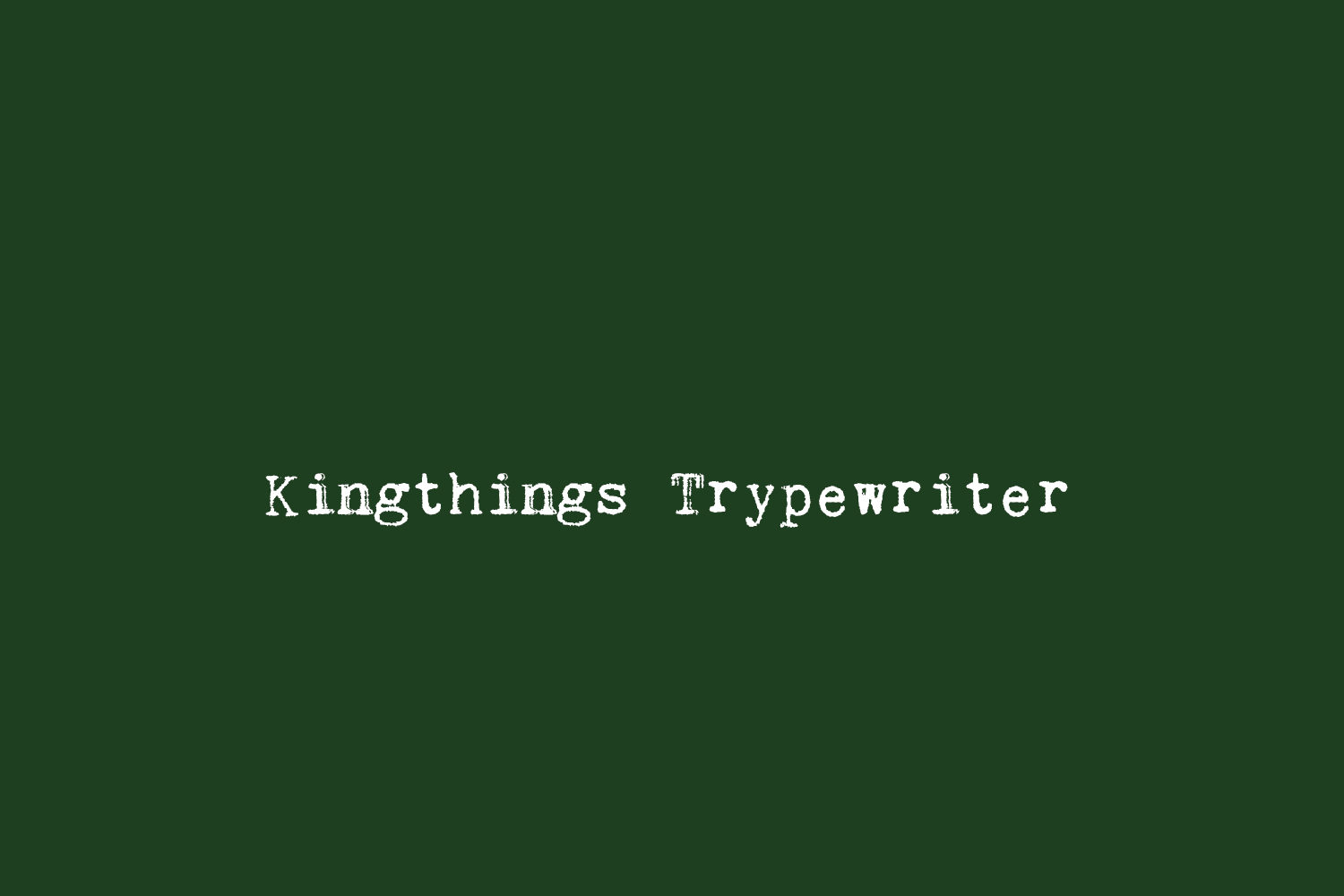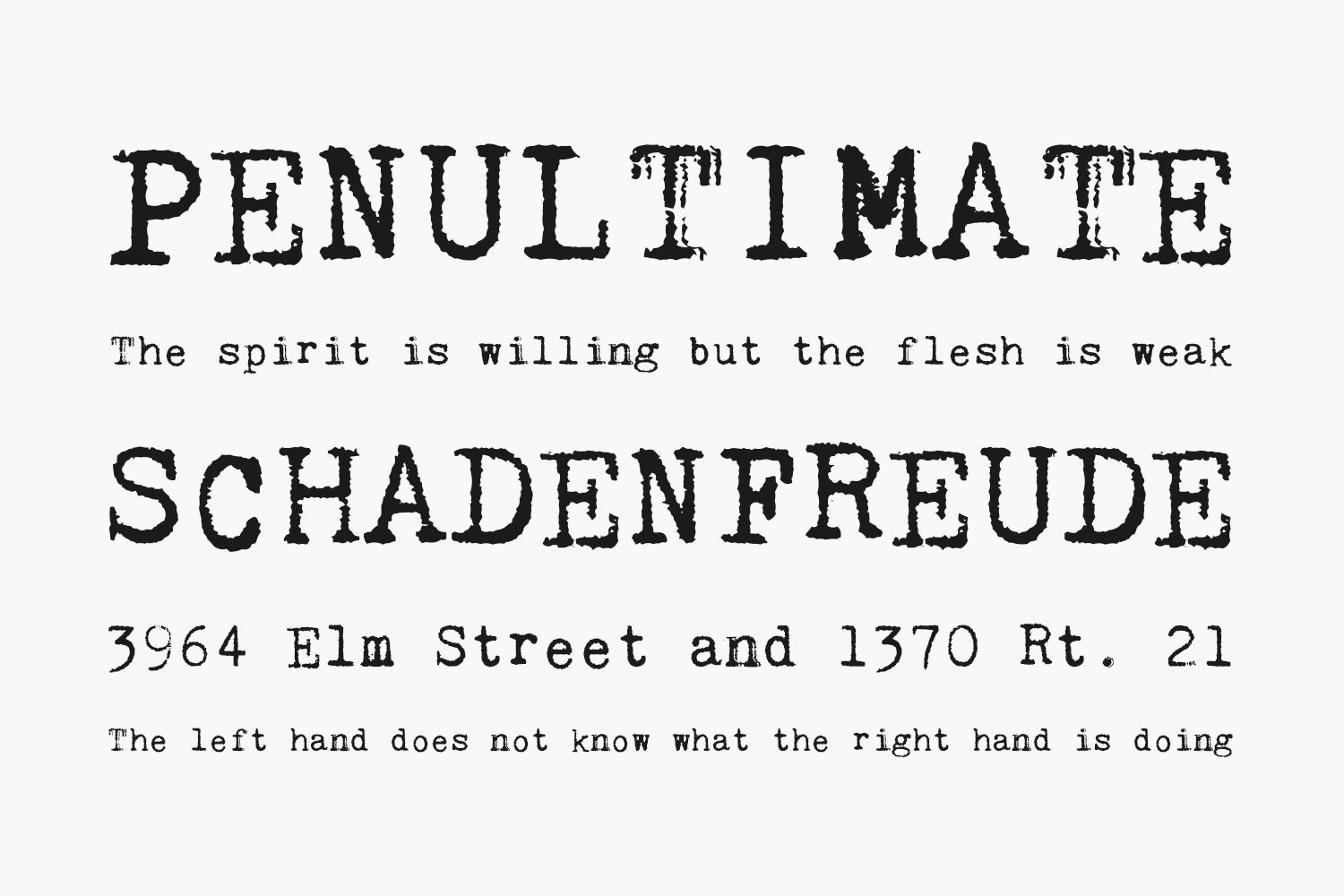
Is taken from my old typewriter that now sits dusty unrepentant and snarling under the bed whilst various forms of word processor come and go – yes it is getting on for 90 years old, yes the sticky ribbons give me black fingers and spludgy letters. I love it – now you can share. This font is free for both personal and commercial purposes.